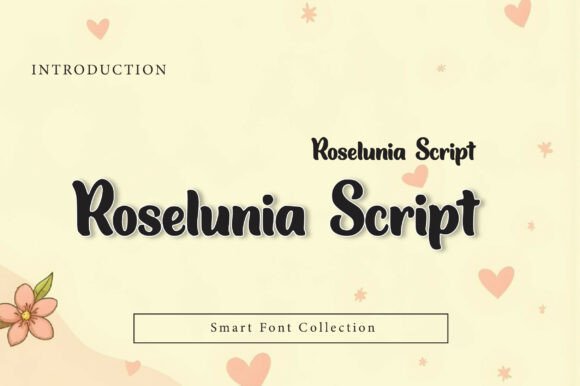
Roselunia Script: A Premium Typeface for Web Design
In the crowded landscape of digital experiences, the choice of a typeface often determines whether a visitor lingers or bounces. As designers, we constantly search for that perfect balance between aesthetic charm and functional clarity. Roselunia Script emerges as a standout option within the Script Amp category, offering a romantic and elegant handwritten style that feels both modern and timeless. Unlike generic calligraphy fonts that can feel dated or overly ornate, this premium font is engineered with smooth flowing strokes and stylish curves that translate beautifully across various screen resolutions.
The Visual Personality of Roselunia Script
When evaluating a new display font for a project, I first look at its personality. Does it whisper elegance, or does it shout for attention? Roselunia Script strikes a sophisticated middle ground. Inspired by graceful signature lettering and modern calligraphy, it carries a premium feminine energy without sacrificing legibility. The letterforms feature consistent stroke weights and fluid connections that mimic the natural movement of a pen, yet they remain crisp enough for high-definition displays.
This visual character makes it an ideal candidate for brands aiming to convey trust, creativity, and warmth. Whether you are building a boutique online store, a coaching website, or a portfolio site, the font’s inherent grace helps establish an immediate emotional connection. It transforms standard text into a design element that elevates the entire page, turning a simple headline into a statement of brand identity.
Strategic Placement in Digital Layouts
While Roselunia Script is visually stunning, its effectiveness depends on where you place it within your layout. In web design, visual hierarchy is paramount. This script font excels in hero sections, landing page headers, and call-to-action areas where short, impactful phrases are required. Imagine a product landing page for a luxury skincare line; using Roselunia Script for the main headline creates an instant sense of exclusivity and care.
However, it is crucial to understand its limitations regarding length. Like most handwritten fonts, it is not intended for long-form body copy. Instead, use it for:
For a creative entrepreneur launching a course sales page, pairing a clean sans serif font for the curriculum details with Roselunia Script for the course title creates a dynamic contrast. This approach guides the user's eye naturally, ensuring that the most important information—the value proposition—is highlighted with style.
Readability and Responsive Design Considerations
A common pitfall with script typefaces is poor readability on mobile devices. However, Roselunia Script has been designed with digital usability in mind. When implementing this typeface in responsive layouts, pay close attention to x-height and spacing. On smaller screens, ensure that the font size remains large enough for the intricate curves to render clearly without blurring.
Background contrast plays a significant role here. While Roselunia Script looks exquisite over light backgrounds, it also performs well on dark themes if the weight is sufficient. For image overlays, consider adding a subtle drop shadow or a semi-transparent background box behind the text to maintain legibility. This ensures that your message remains clear regardless of the underlying imagery.
Furthermore, when designing for touch interfaces, avoid using the font for very small interactive elements. Buttons should have adequate padding, and the text inside should be sized appropriately to prevent accidental taps. By respecting these constraints, you maintain the professional polish that defines a high-quality digital product.
Mastering Font Pairing for Brand Identity
The true power of Roselunia Script is unlocked through strategic font pairing. Because the script is so expressive, it needs a neutral partner to let it shine without overwhelming the user. My go-to strategy is pairing it with a geometric or humanist sans serif font for body copy. This combination offers a modern, editorial feel that works perfectly for blogs, SaaS founders, and lifestyle brands.
Alternatively, for a more traditional or academic vibe, pair it with a classic serif font. This creates an "editorial design" aesthetic suitable for wedding planners, authors, or heritage brands. The key is to ensure the secondary font is highly readable and structurally simple, allowing Roselunia Script to take center stage as the decorative element.
Consider a blog header where the post title uses Roselunia Script while the excerpt and article body utilize a clean sans serif. This creates a rhythm that encourages scanning behavior, making the content feel inviting rather than dense. It reinforces the brand tone, signaling to the reader that this is a space dedicated to quality and thoughtful curation.